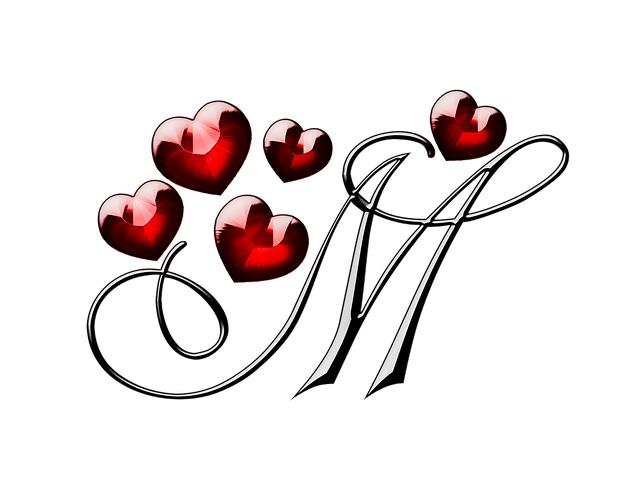
Best Font for Poem in Canva: Typography That Complements Your Verse
Have you ever wanted to create a visually stunning poem in Canva, but struggled to choose the perfect font that complements your verse? Look no further! In this article, we will explore the best fonts to use for poems in Canva, helping you to elevate your writing with typography that enhances your message. Whether you’re a seasoned poet or just starting out, let’s dive into the world of typography and discover how to make your words shine on the page.
Choosing the Right Font Style for Your Poem Design
When creating a visually appealing design for your poem, one crucial element to consider is the font style you choose. The right font can enhance the overall aesthetic and convey the mood of your poem effectively. Here are some tips to help you select the perfect font style for your poem design:
Consider the tone of your poem:
• Serif fonts: These fonts are classic and elegant, making them suitable for formal or traditional poems.
• Sans-serif fonts: These fonts are modern and clean, ideal for contemporary or minimalist poems.
• Script fonts: These fonts add a touch of elegance and can be perfect for romantic or whimsical poems.
Think about readability:
• Choose a font that is easy to read: Ensure that the font you select is legible and doesn’t distract from the content of your poem.
• Avoid overly decorative fonts: While fancy fonts can be visually appealing, they can also make your poem difficult to read, so opt for a balance between style and readability.
Consider the Mood and Tone of Your Poem
When crafting a poem, it is crucial to consider the mood and tone that you want to convey to your readers. The mood sets the overall atmosphere of your poem, while the tone reflects the attitude or feeling that you want to establish. By carefully selecting the mood and tone of your poem, you can evoke specific emotions and create a more impactful piece of writing.
To determine the mood and tone of your poem, consider the following factors: the subject matter, the choice of words, the imagery used, and the overall structure of the poem. Each of these elements plays a key role in shaping the mood and tone of your poetry. Experiment with different styles and techniques to see what resonates with you and best conveys the message you want to share with your audience. Remember that the mood and tone of your poem can vary throughout the piece, adding depth and complexity to your writing. Embrace the opportunity to play with contrasts and shifts to keep your readers engaged and intrigued.
Typography Tips for Enhancing Readability and Aesthetics
When it comes to typography, choosing the right font can make a significant impact on both the readability and aesthetics of your design. One key tip is to ensure that the font size is large enough to be easily read, especially on screens where text may appear smaller. To further enhance readability, consider incorporating ample line spacing and adjusting the line length to prevent lines of text from becoming too long.
Another important aspect to consider is font choice. Opting for a sans-serif font can often improve readability on screens, while serif fonts are commonly used for printed materials. Additionally, utilizing a combination of font styles, such as bold or italic, can help differentiate between headings and body text. Remember to keep consistency in mind, as using too many different fonts can create a cluttered and distracting design. By following these typography tips, you can create visually appealing and easy-to-read content for your audience.
Play with Font Pairings to Create Visual Interest
When it comes to designing visually appealing content, font pairings can make a huge difference. Mixing and matching different fonts can help create a unique and eye-catching look that grabs the viewer’s attention. Experimenting with various combinations can add depth and personality to your design, making it stand out from the crowd.
To create a harmonious yet engaging visual appeal, try combining fonts that have contrasting styles. For instance, pairing a bold and thick font with a delicate and elegant serif font can create a striking contrast that draws the eye. Additionally, consider using different weights and styles within the same typeface to create hierarchy and emphasis in your design. By playing around with different font pairings, you can elevate your design and make it more dynamic and visually interesting to your audience.
Best Fonts for Different Poetry Styles
When it comes to choosing fonts for poetry, it’s important to consider the style and tone of the poem you’re writing. Each poetry style has its own unique characteristics, and the font you choose can help convey those qualities to your readers. Here are some of the best fonts to use for different poetry styles:
For traditional poetry styles like sonnets or ballads, serif fonts such as Times New Roman or Garamond can be a great choice. The classic elegance of serif fonts can help evoke the timeless quality often associated with these traditional forms of poetry. Additionally, serif fonts can help give your poems a polished and professional look, perfect for capturing the formal tone of these styles.
If you’re writing more modern or experimental poetry, sans-serif fonts like Arial or Helvetica can be a good option. The clean lines and contemporary feel of sans-serif fonts can complement the innovative and unconventional nature of these poetry styles. Sans-serif fonts also tend to be more readable on digital screens, which can be important if you’re sharing your poetry online. Experiment with different fonts to find the one that best suits the mood and message of your poems.
Utilizing Canva's Font Pairing Suggestions
Utilizing Canva’s Font Pairing Suggestions
When it comes to creating visually appealing designs, choosing the right font pairing can make all the difference. Canva’s font pairing suggestions feature is a game-changer for anyone looking to elevate their design projects. With a wide range of font options to choose from, Canva makes it easy to experiment with different combinations to find the perfect pairing for your project.
By , you can save time and effort while still achieving professional-looking results. The tool provides recommendations based on complementary styles, making it easy to create cohesive and aesthetically pleasing designs. Whether you’re working on a flyer, social media graphic, or presentation, Canva’s font pairing suggestions will help you take your designs to the next level.
Customizing Fonts in Canva for a Unique Poem Design
In Canva, you can easily customize fonts to create a unique design for your poem. Experiment with different font styles, sizes, and colors to make your words stand out. Choose from a wide range of fonts to find the perfect one that complements the mood and theme of your poem.
To make your poem design even more distinctive, try mixing and matching different fonts for the title, headings, and body text. This can add visual interest and help emphasize key words or phrases. Don’t be afraid to play around with font pairings until you find the right combination that truly captures the essence of your poem. With Canva’s user-friendly interface, you can effortlessly create a one-of-a-kind design that showcases your poetic masterpiece in a visually appealing way.
Q: What is the importance of choosing the right font for a poem in Canva?
A: Choosing the right font for your poem in Canva is crucial as it can enhance the overall readability and aesthetic appeal of your verse.
Q: How do I select a font that complements my poem in Canva?
A: Consider the mood and tone of your poem and choose a font that reflects that. Pay attention to the spacing, size, and style of the font to ensure it complements your verse.
Q: Are there specific fonts that work well for poetry in Canva?
A: There is no one-size-fits-all answer, as the best font for your poem will depend on the content and style of your verse. Experiment with different fonts to find the one that resonates with your poetry.
Q: Should I stick to classic fonts for my poem in Canva?
A: While classic fonts like Times New Roman or Garamond are always a safe choice, don’t be afraid to explore more creative and unique fonts to add a modern and artistic touch to your poem.
Q: How can I make my poem stand out in Canva using typography?
A: Play around with font pairings, sizes, colors, and alignments to create a visually striking design that complements the message and emotions of your poem.
Q: Any final tips for selecting the best font for a poem in Canva?
A: Trust your instincts and choose a font that resonates with you and enhances the overall meaning and impact of your poem. Experiment, have fun, and let your creativity shine through your typography choices.
The Way Forward
In conclusion, selecting the right font is essential when designing a poem in Canva. Choose a typography that complements the mood and theme of your verse.